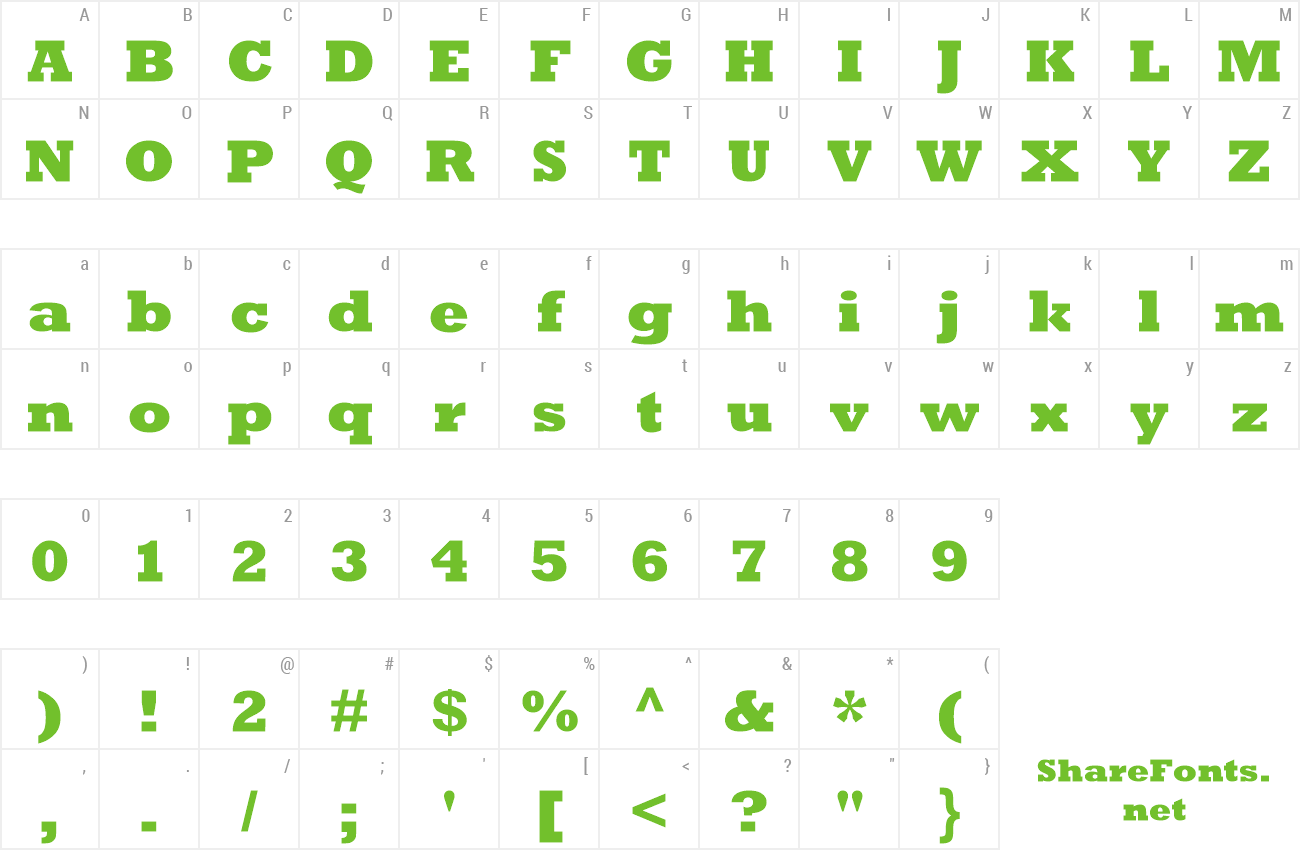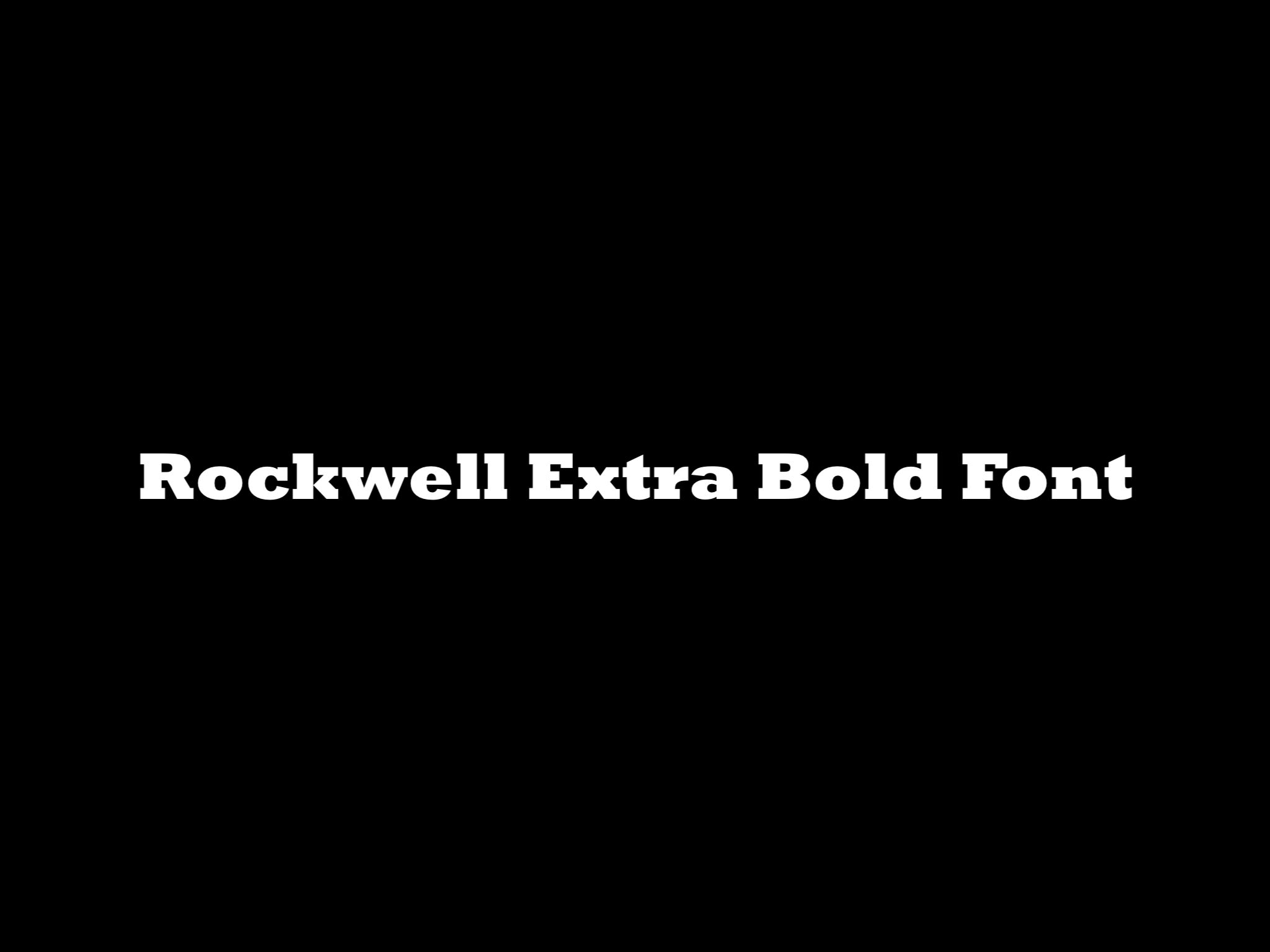
Rockwell Extra Bold Font
Rockwell Extra Bold Font - See how to download rockwell extrabold for free! Bold and impactful with thick, uniform strokes. Rockwell extrabold is the perfect font for all. Installable on pc, mac, linux,. This font features bold, thick. This font features bold, thick strokes with a strong presence. It has a geometric slab. Discover the free rockwell extra bold font at free font download !
Discover the free rockwell extra bold font at free font download ! Bold and impactful with thick, uniform strokes. Installable on pc, mac, linux,. See how to download rockwell extrabold for free! This font features bold, thick strokes with a strong presence. Rockwell extrabold is the perfect font for all. It has a geometric slab. This font features bold, thick.
This font features bold, thick strokes with a strong presence. Installable on pc, mac, linux,. Rockwell extrabold is the perfect font for all. Discover the free rockwell extra bold font at free font download ! See how to download rockwell extrabold for free! Bold and impactful with thick, uniform strokes. This font features bold, thick. It has a geometric slab.
It has a geometric slab. This font features bold, thick strokes with a strong presence. See how to download rockwell extrabold for free! Discover the free rockwell extra bold font at free font download ! Installable on pc, mac, linux,.
This font features bold, thick. Bold and impactful with thick, uniform strokes. Discover the free rockwell extra bold font at free font download ! It has a geometric slab. This font features bold, thick strokes with a strong presence.
Discover the free rockwell extra bold font at free font download ! Installable on pc, mac, linux,. Bold and impactful with thick, uniform strokes. This font features bold, thick strokes with a strong presence. See how to download rockwell extrabold for free!
It has a geometric slab. This font features bold, thick. Installable on pc, mac, linux,. Bold and impactful with thick, uniform strokes. Rockwell extrabold is the perfect font for all.
This font features bold, thick. This font features bold, thick strokes with a strong presence. Installable on pc, mac, linux,. Rockwell extrabold is the perfect font for all. Discover the free rockwell extra bold font at free font download !
This font features bold, thick. Rockwell extrabold is the perfect font for all. Bold and impactful with thick, uniform strokes. Installable on pc, mac, linux,. See how to download rockwell extrabold for free!
Rockwell extrabold is the perfect font for all. This font features bold, thick. See how to download rockwell extrabold for free! Bold and impactful with thick, uniform strokes. This font features bold, thick strokes with a strong presence.
Bold and impactful with thick, uniform strokes. It has a geometric slab. This font features bold, thick strokes with a strong presence. Discover the free rockwell extra bold font at free font download ! This font features bold, thick.
Rockwell extrabold is the perfect font for all. Installable on pc, mac, linux,. It has a geometric slab. This font features bold, thick strokes with a strong presence. Bold and impactful with thick, uniform strokes.
This Font Features Bold, Thick Strokes With A Strong Presence.
Rockwell extrabold is the perfect font for all. Bold and impactful with thick, uniform strokes. Discover the free rockwell extra bold font at free font download ! This font features bold, thick.